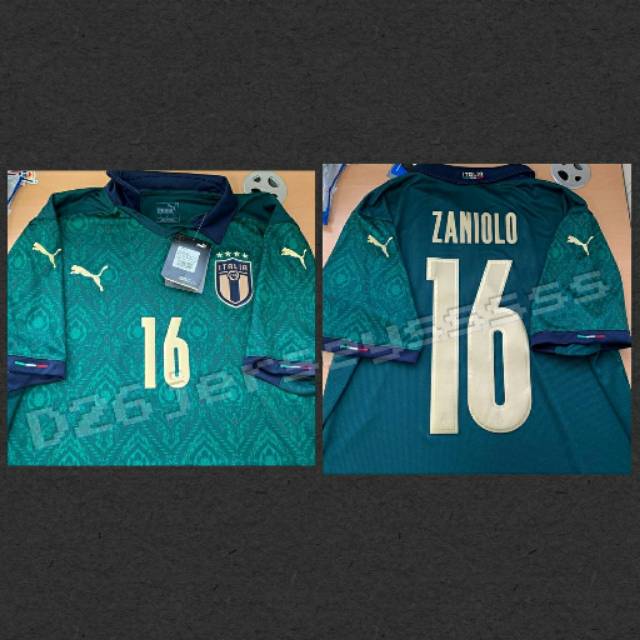
Size sports jersey by arfurware. Baseball fonts are inspired by the letters on baseball jerseys. Size jersey sharp by jayde garrow.
A serif font has short lines at the ends of the letters making it look less blocky one of the most popular serif fonts that. The left and right curly brackets hold alternate glyphs for numbers 2 and 5. 9 matching requests on the forum.
Often they include a large swash which underlines the whole team name. Generate a custom football soccer or basketball jersey with these sporty fonts. More about bayern munchen font 2020 2021.